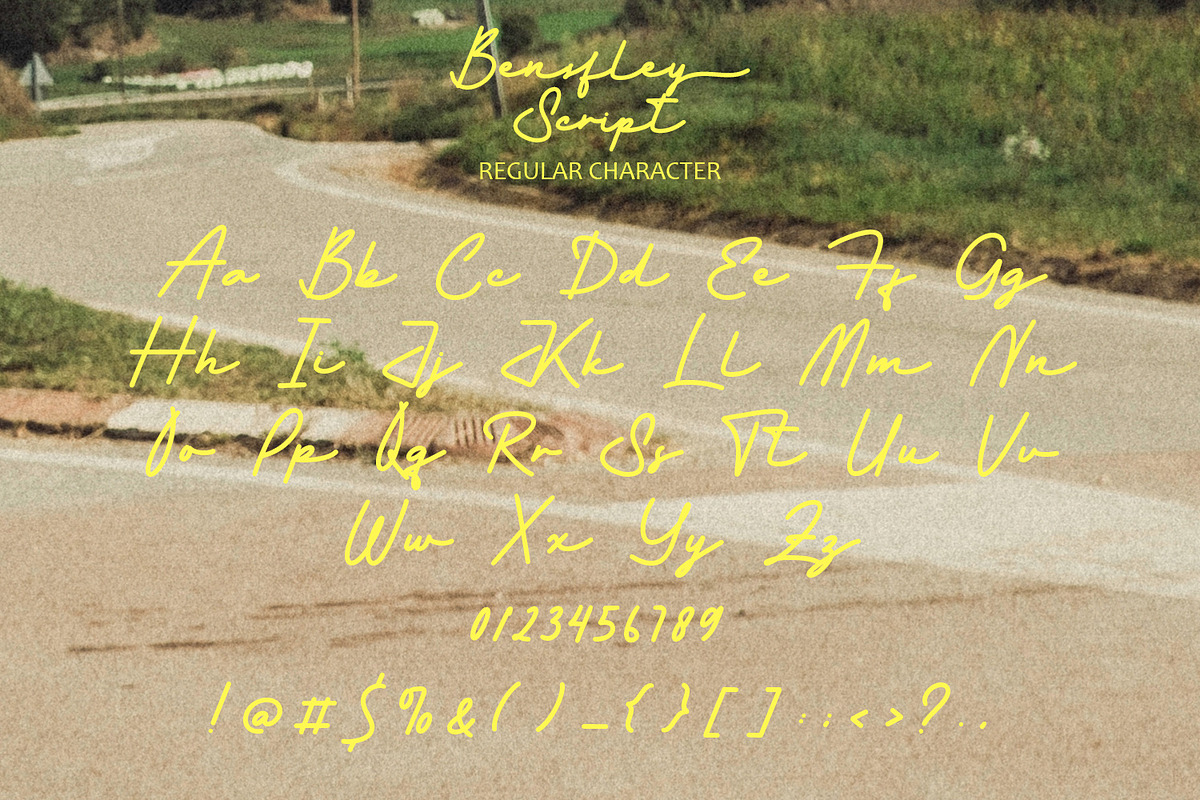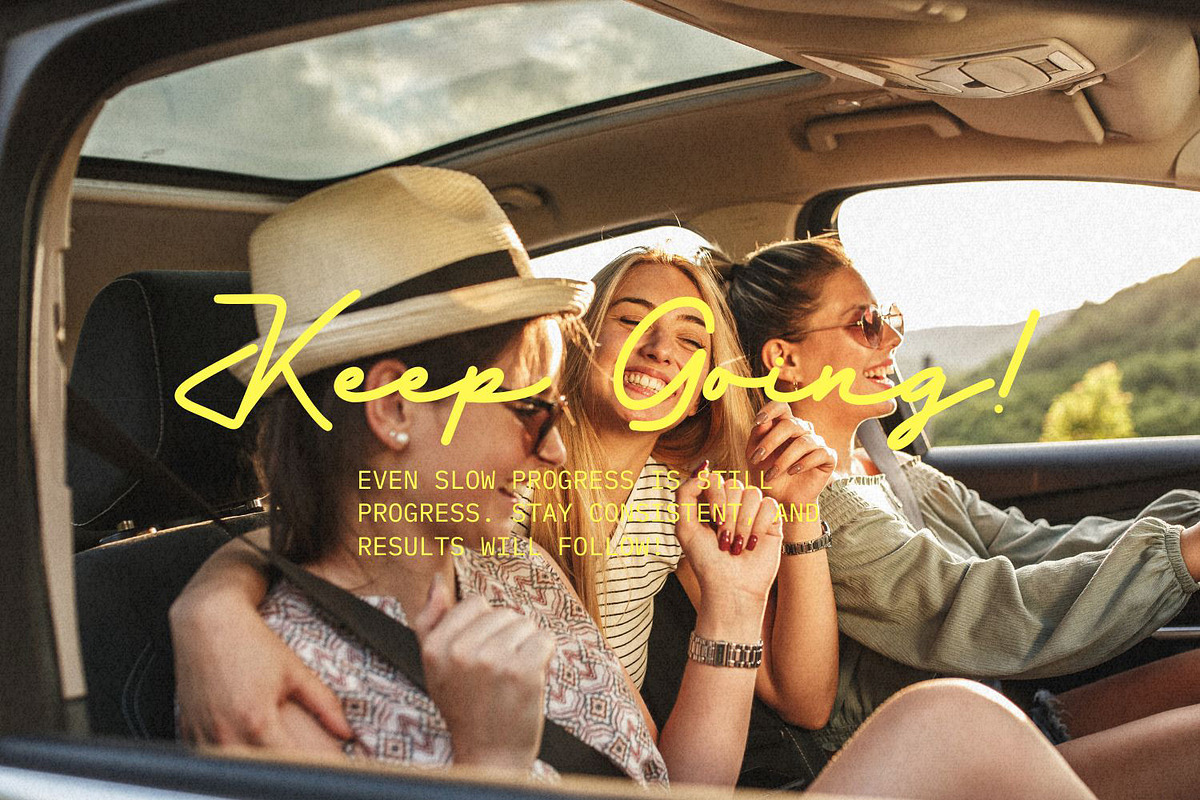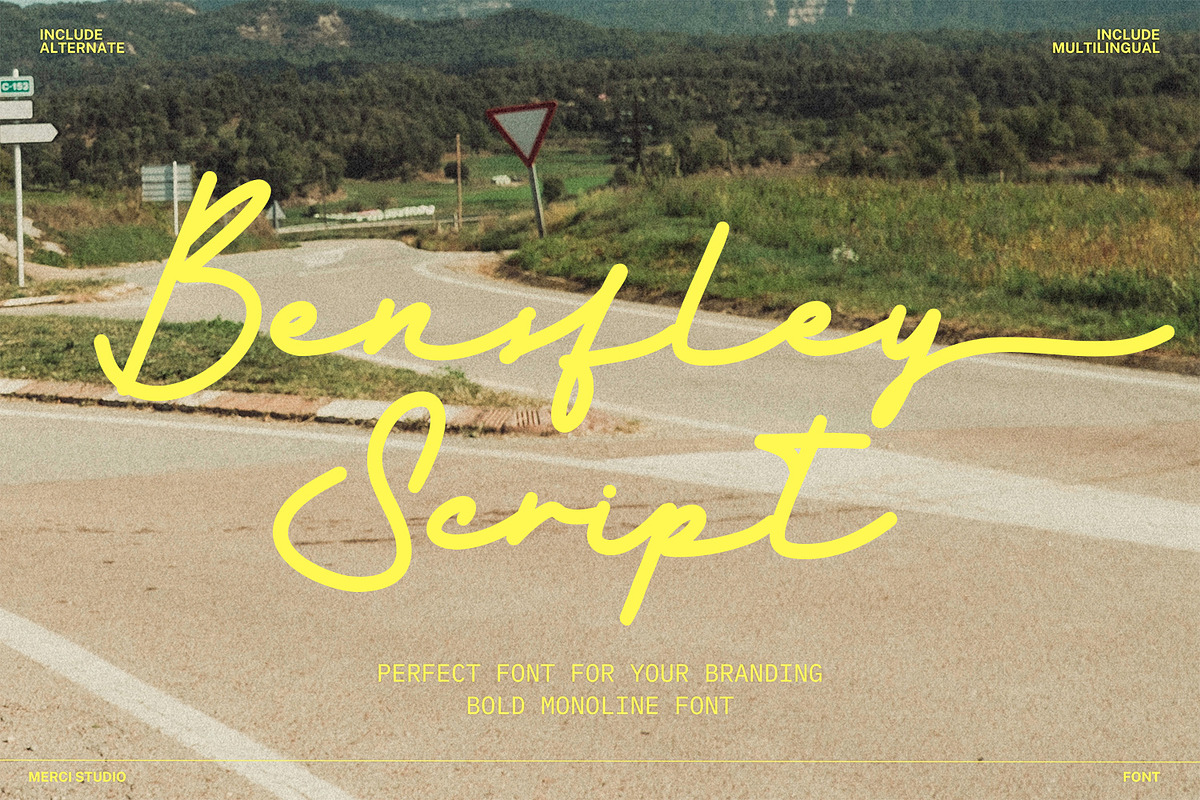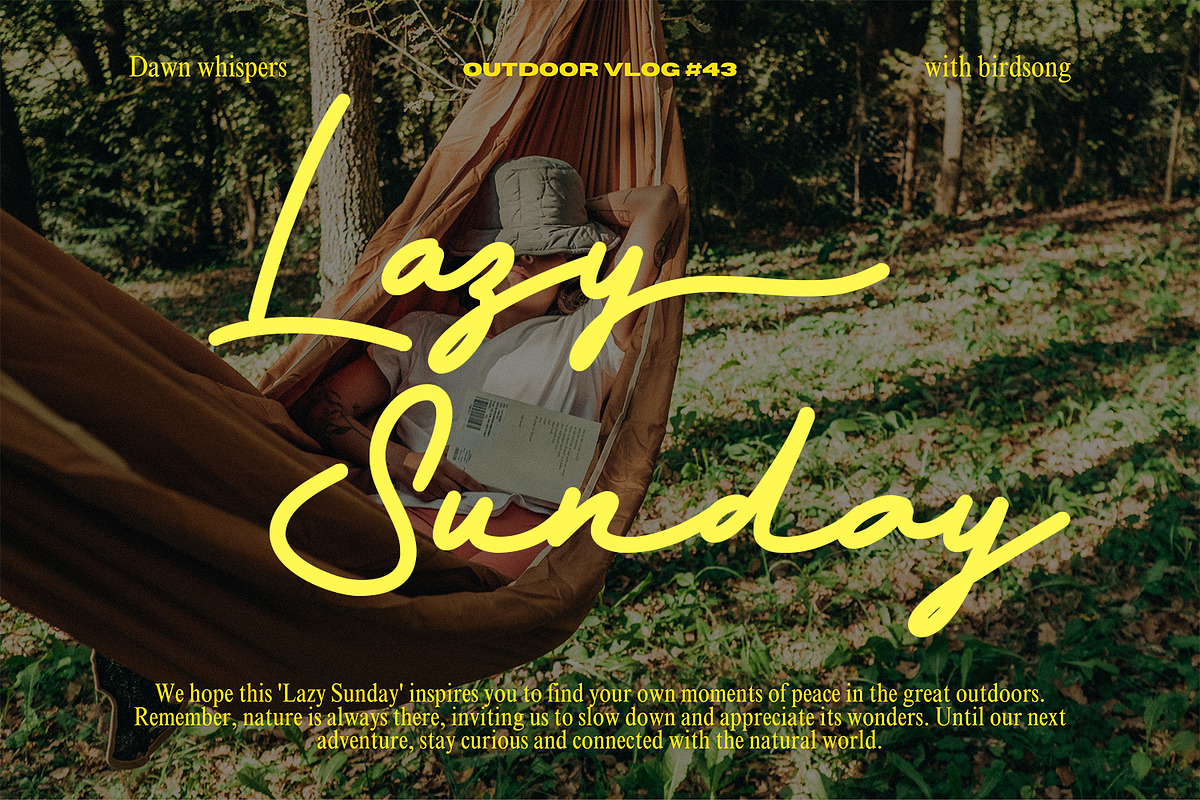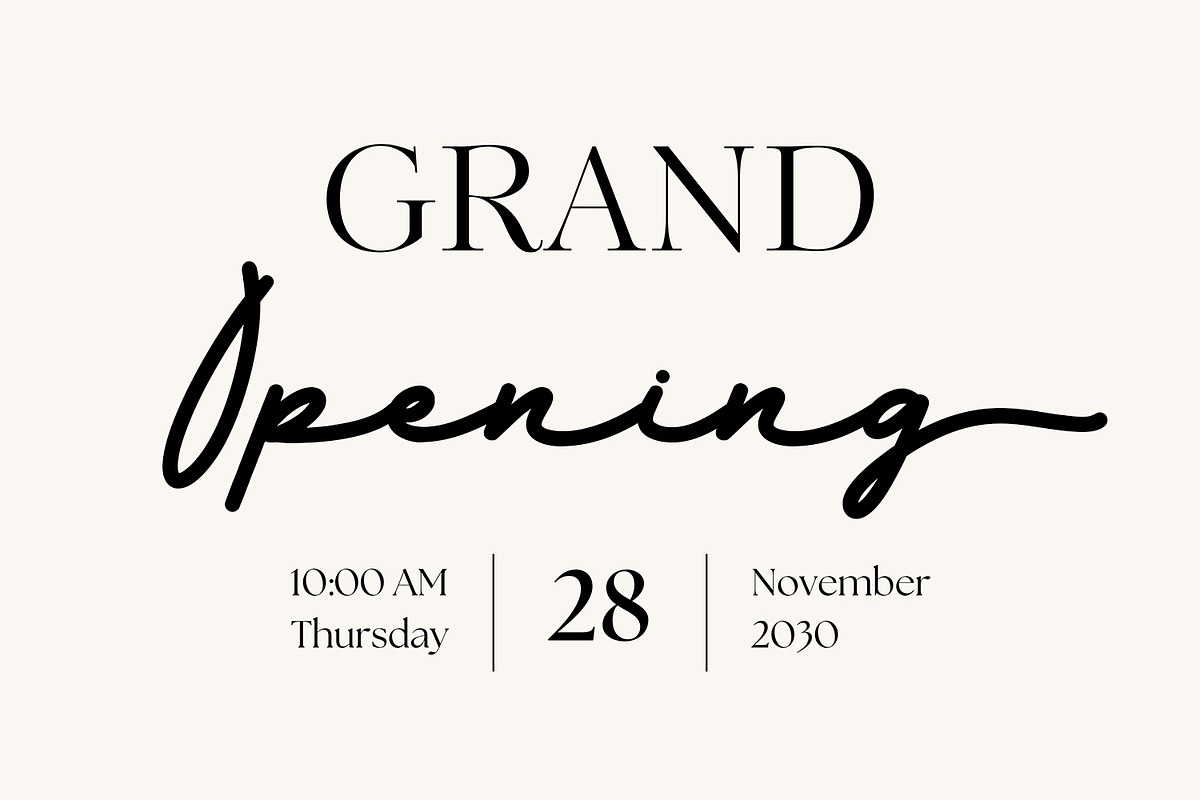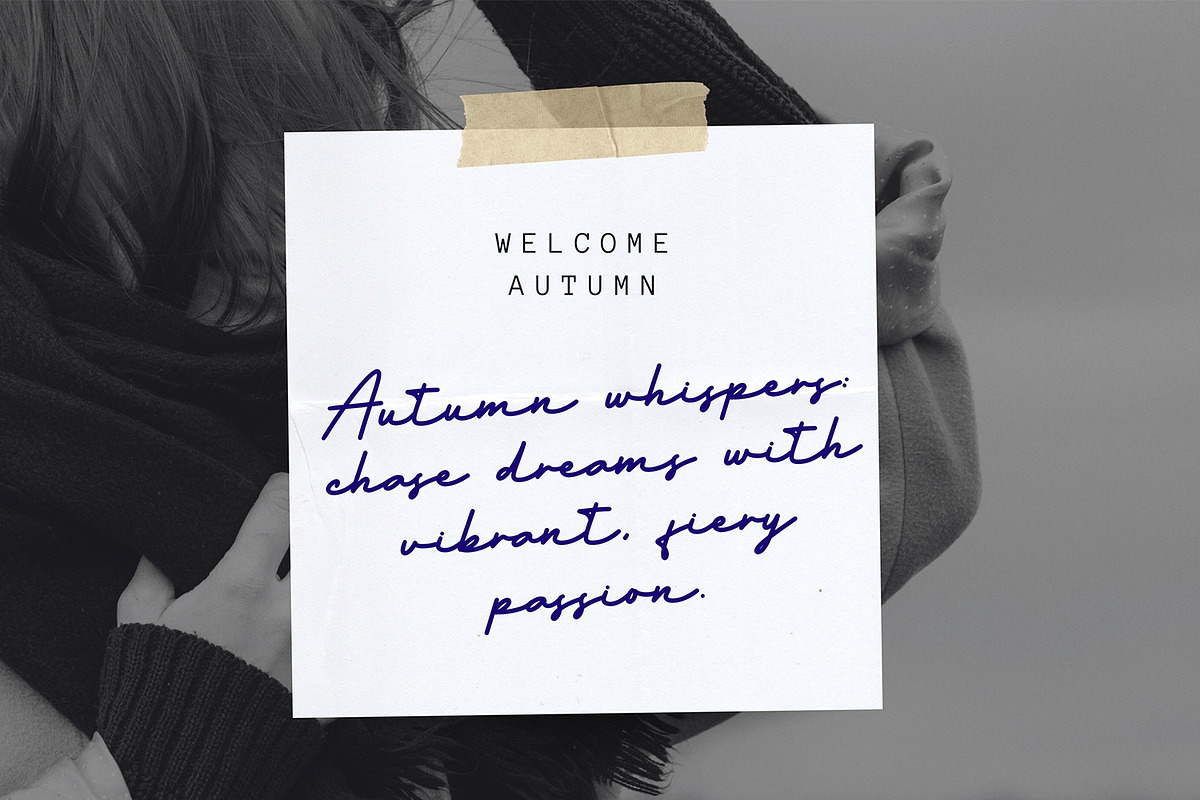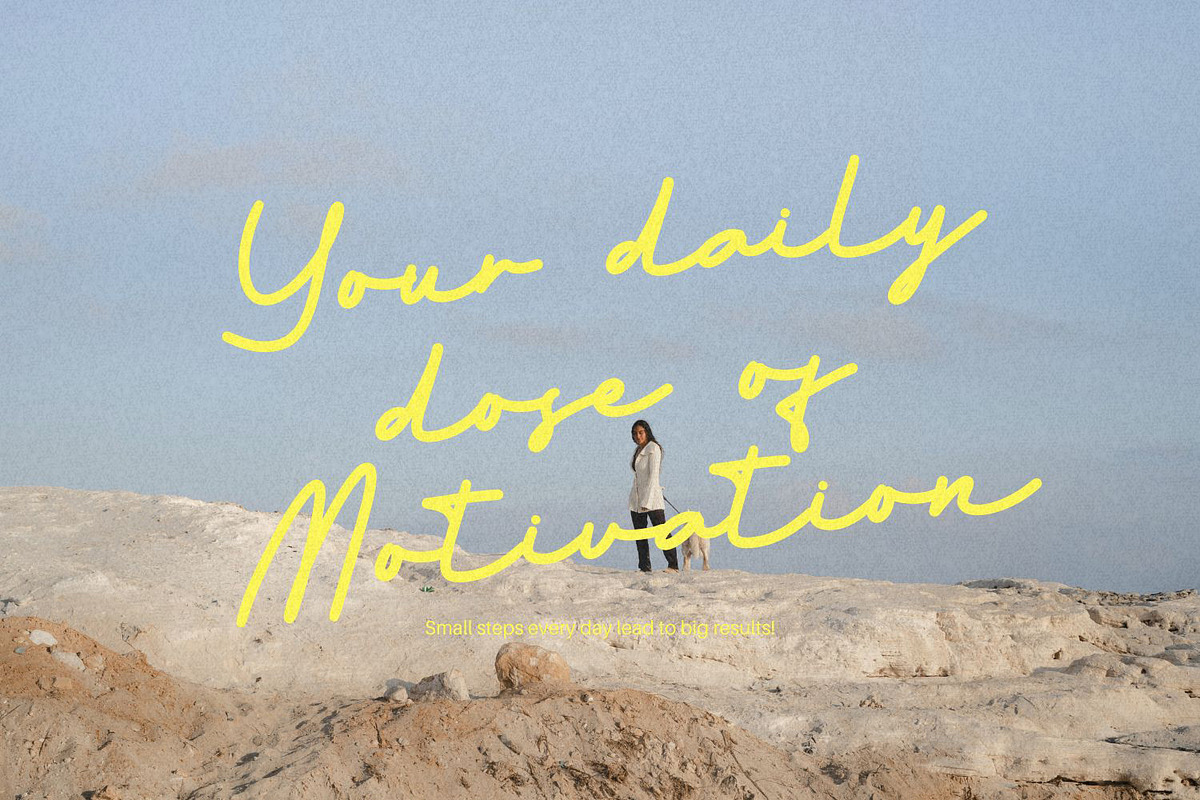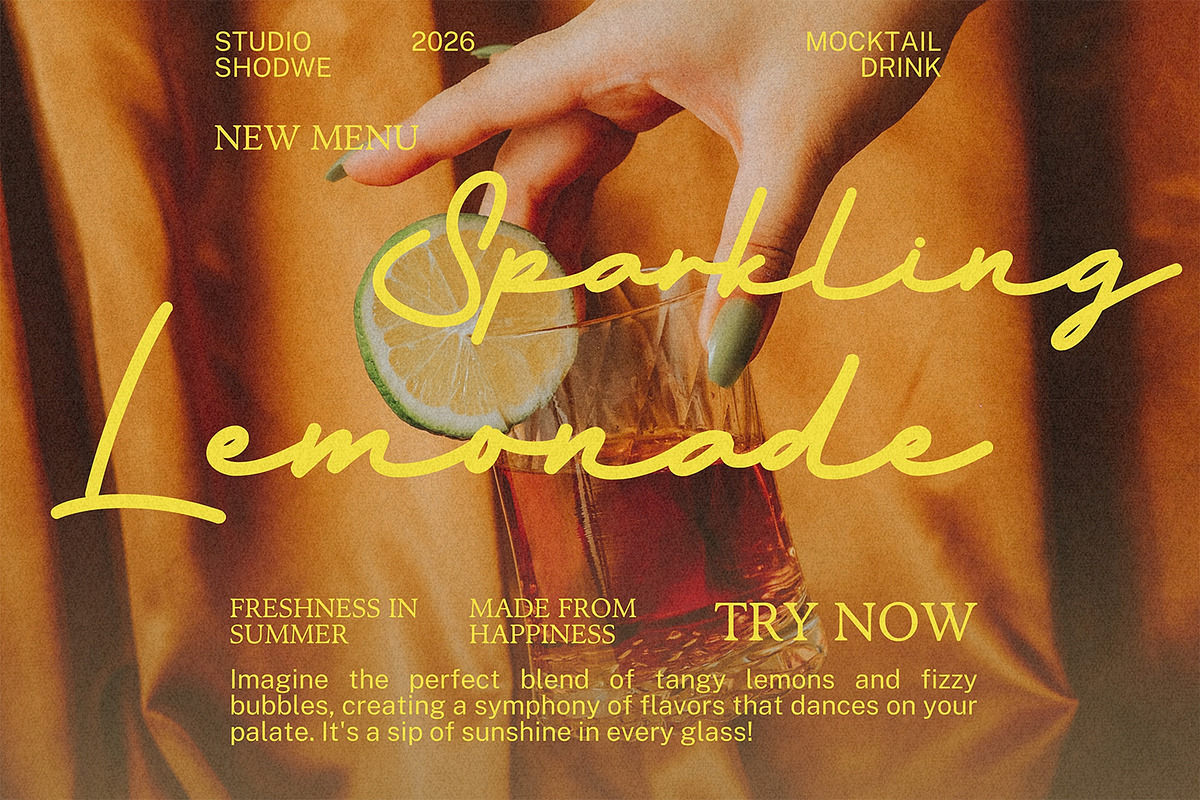
Bensfley Script – Signature Font
Bensfley Script is a bold monoline font designed to bring a confident, modern, and stylish feel to your creative projects. With its smooth curves and consistent stroke weight, this typeface offers a harmonious blend of elegance and strength, making it perfect for branding, packaging, social media, and editorial layouts. It includes alternates for added versatility and supports multiple languages, ensuring that your designs can reach a global audience. Whether you’re crafting a bold headline, a signature logo, or a striking quote, Bensfley Script delivers personality and impact with every letter.
* Uppercase Letters
* Numbers & Punctuation
* Ligature & Alternate Character
* Unique Hand-Drawn Style